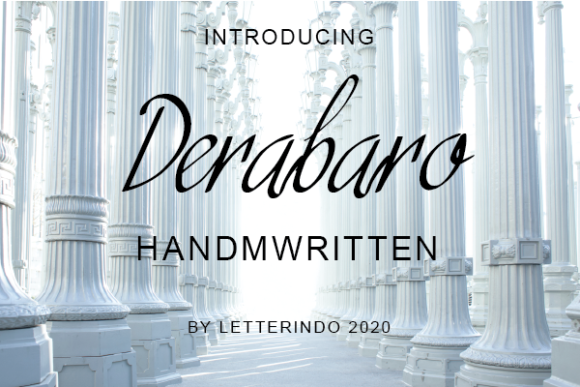
Escape into a world of captivating storytelling with Derabaro, the script font that transforms your words into captivating narratives. Crafted with meticulous precision by the renowned johndesign540, Derabaro embodies elegance and warmth, inviting you to weave enchanting tales.
Derabaro's timeless curves and subtle flourishes lend a touch of sophistication to your designs, making it the perfect choice for speech scripts, greeting cards, and any project where emotions need to flow effortlessly. Each letter dances across the page, carrying the weight of your words with grace and allure.
With Derabaro, your creations will blossom into captivating journeys that resonate with your audience. Its classic style evokes a sense of nostalgia, while its friendly charm ensures that your message remains approachable and engaging.
Whether you're crafting a heartfelt speech or designing a whimsical invitation, Derabaro will elevate your words to new heights. Its versatility knows no bounds, adapting seamlessly to any style or theme. Let your imagination soar, and watch as Derabaro transforms your designs into works of art that speak to the soul.